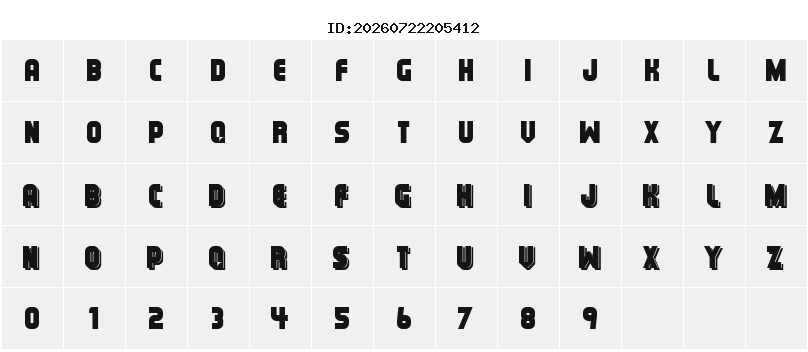
• Font Name: Municipal
• Full Font Name: Municipal
About Municipal.ttf
Municipal.ttf is a modern, elegant sans-serif font designed for ultimate readability and visual harmony. Perfect for branding, headlines, web design, and print materials.